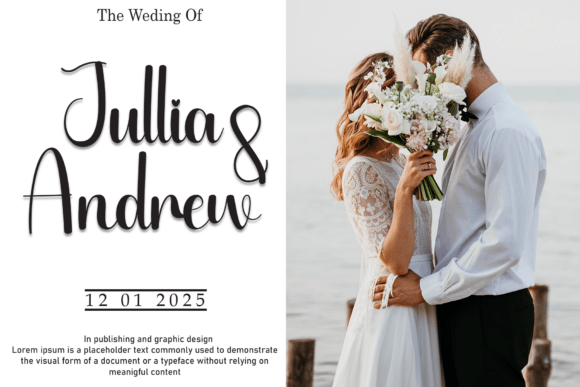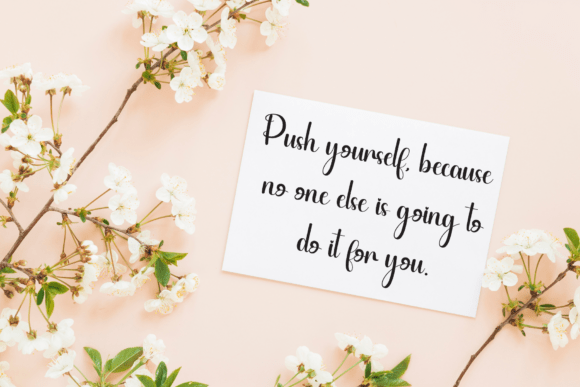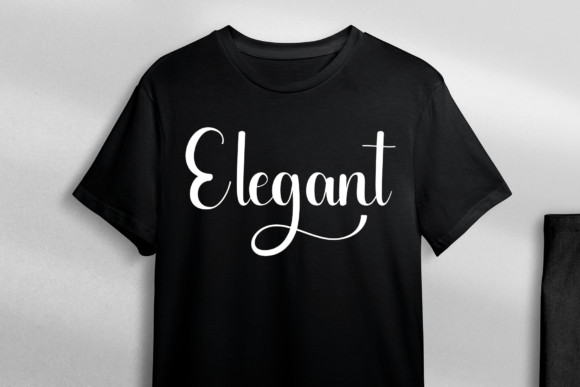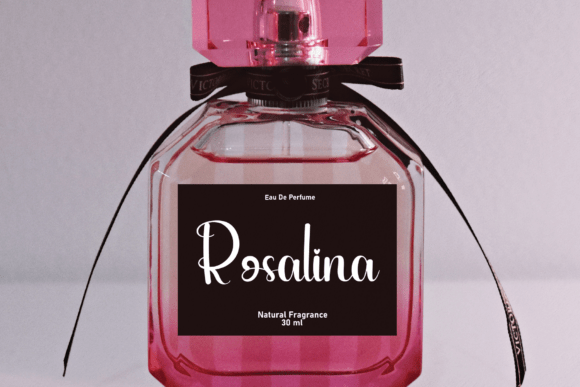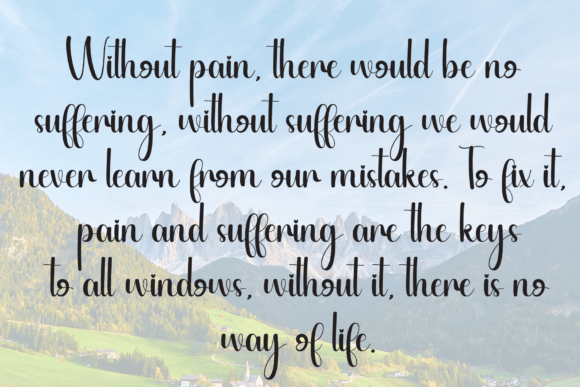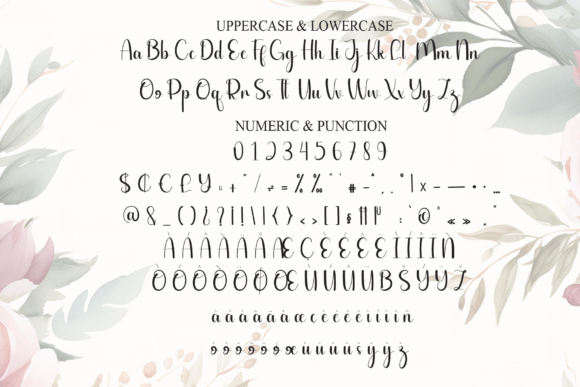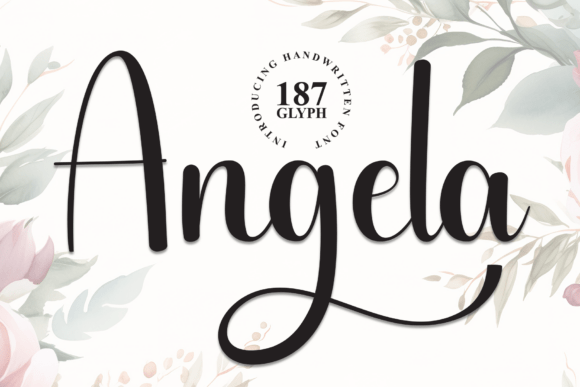
The Elegance of Angela Font: A Designer’s New Best Friend
I still remember the time I was working on a wedding invitation project, and my client asked for a font that exuded elegance and sophistication. I scoured the internet, tried out countless fonts, but nothing seemed to fit the bill. That was until I stumbled upon Angela Font. Its fluid, graceful strokes instantly caught my attention, and I knew I had found the perfect fit. In this article, I’ll share my experience with Angela Font, its features, and how to make the most out of it in your designs.
An Honest Review of Angela Font
• ✨ Elegant and sophisticated look that’s perfect for high-end designs
• ✅ Smooth curves and natural flow that create a timeless, refined look
• 💫 Fluid, handwritten script strokes that add a personal touch to any design
• 🎨 Highly versatile and can be used for branding, invitations, stationery, and more
While Angela Font is an excellent choice for many designs, there are a few things to keep in mind:
• ⚠️ May not be suitable for very small font sizes, as some details may get lost
• 🤔 Limited availability of certain characters or glyphs, but this can be addressed with OpenType features
The Story Behind Angela Font
Angela Font was designed by a team of typographers who aimed to create a font that exudes elegance and sophistication. Inspired by traditional calligraphy, they crafted a font that features fluid, handwritten script strokes with a natural flow. The result is a timeless, refined look that’s perfect for high-end designs.
Font Name Angela Font
Author Robbots stores
Q: What is Angela Font?
Angela Font is a stylish handwritten script font that features fluid, graceful strokes and a natural flow. It’s perfect for designs that require an elegant and sophisticated look.
Q: Is Angela Font suitable for body text?
While Angela Font is an excellent choice for headings and titles, it may not be the best choice for body text. Its elegant and sophisticated look is better suited for short texts, such as captions and descriptions.